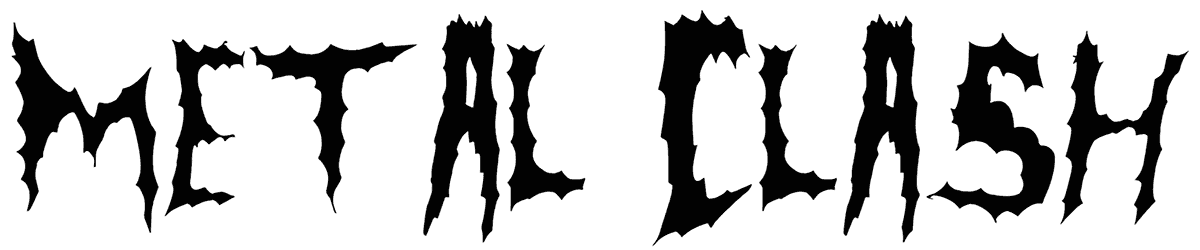
Metal Clash Font
Designing timeless and remarkable graphic content, such as blog posts, digital banners, street posters, graffiti, or billboards, requires a marvelous death font like Metal Clash.
This all-caps masterpiece comes with crooked characters and leads to a sense of uniqueness, jauntiness, fear, or dread. In addition to the aforementioned details, don’t forget to visit our glamorous archive to find more artistic products and daily updates.